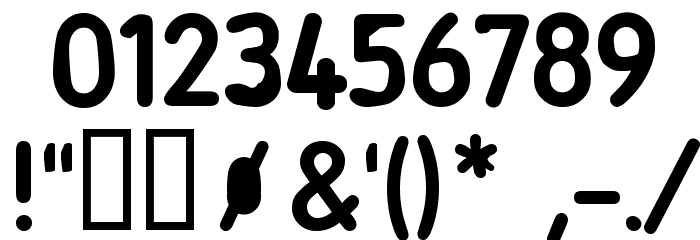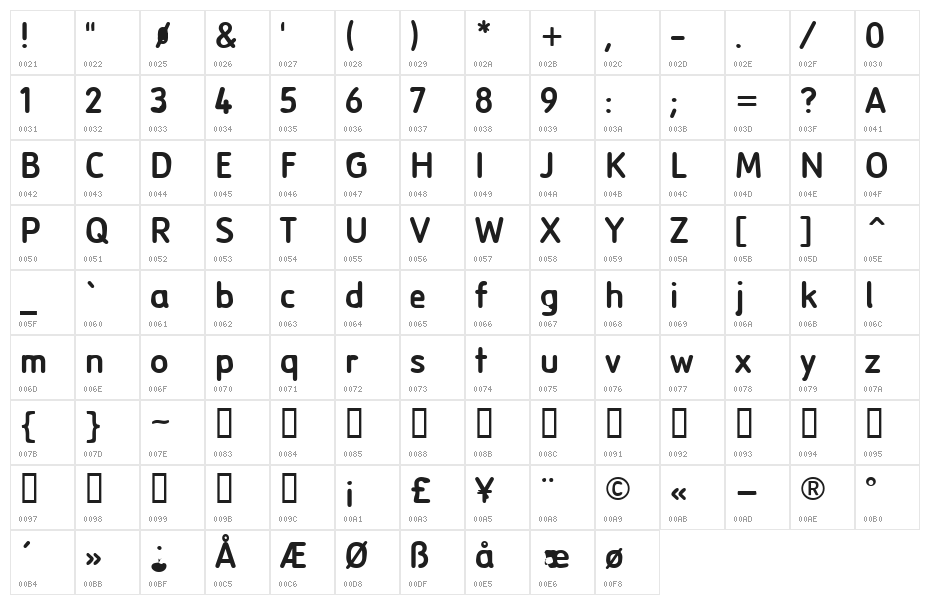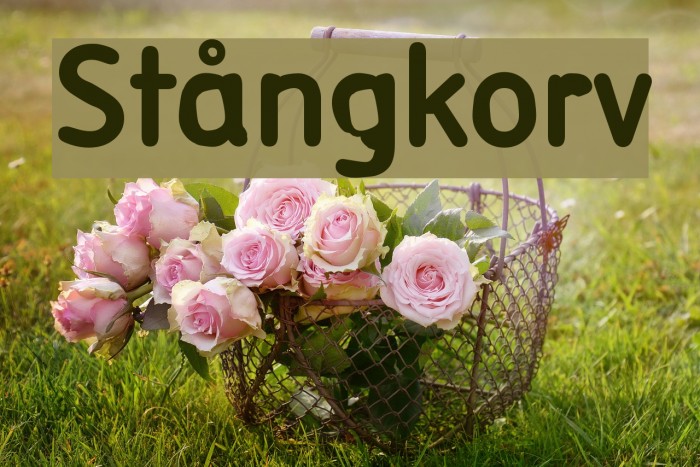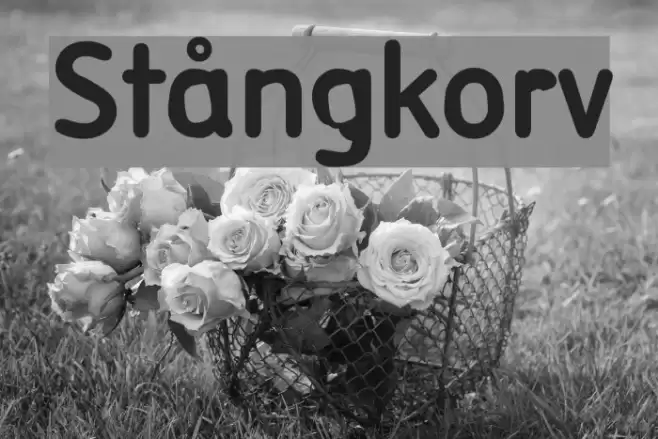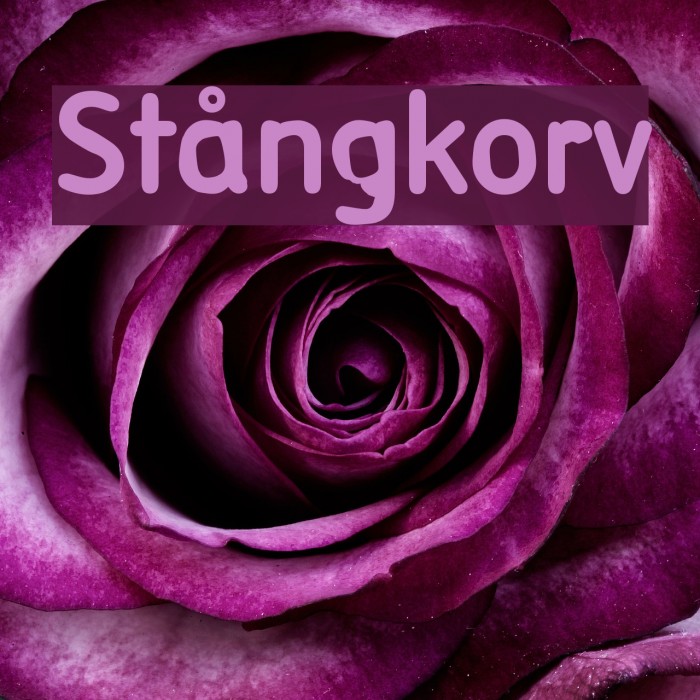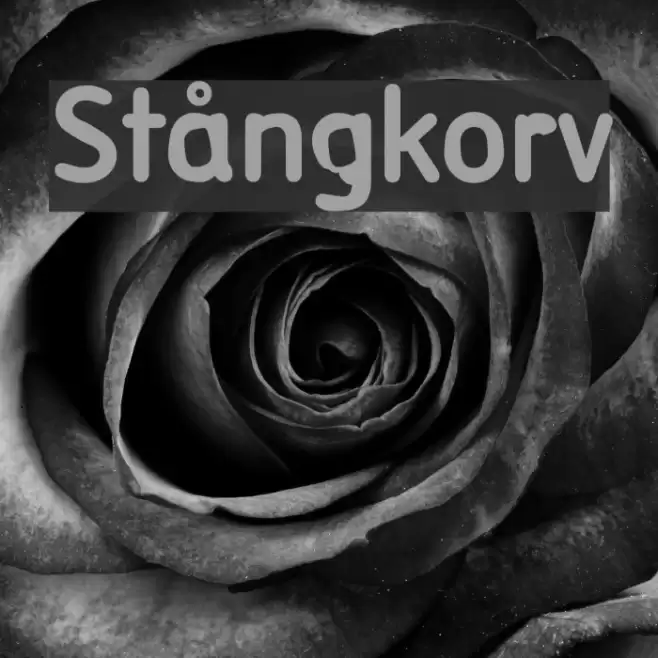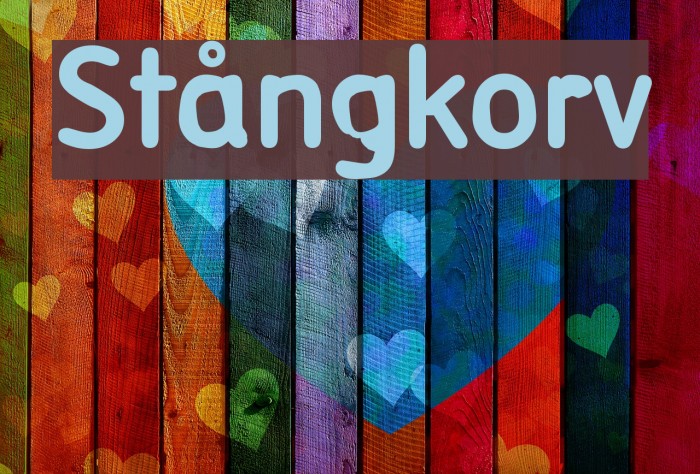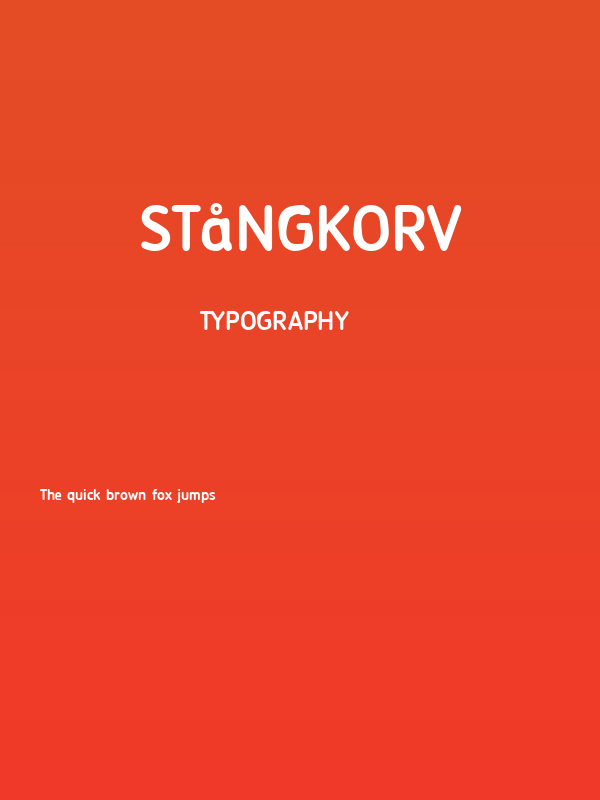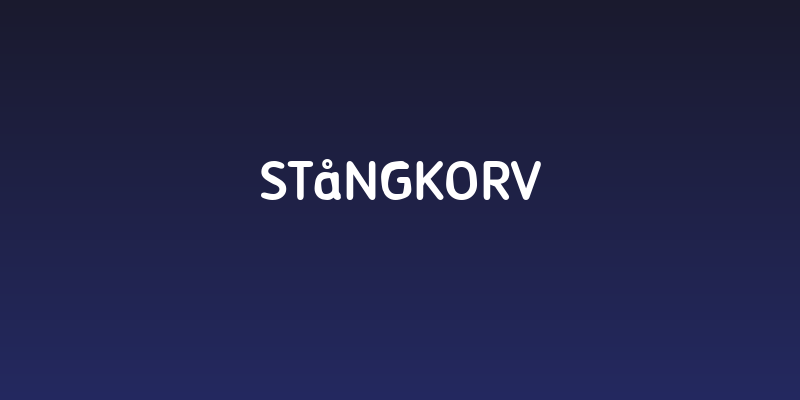
Stångkorv Font
Stångkorv Description
This font features a clean and modern sans-serif style with rounded edges, giving it a friendly and approachable appearance. The characters are uniformly weighted, providing a consistent look across both uppercase and lowercase letters. The numerals and special characters maintain the same rounded aesthetic, ensuring harmony throughout the typeface. The overall design is simple yet effective, making it versatile for various applications. Its readability is enhanced by the balanced spacing between characters, making it suitable for both digital and print media.
| Proposed Projects | Ideal for branding, user interfaces, children's books, and educational materials. |